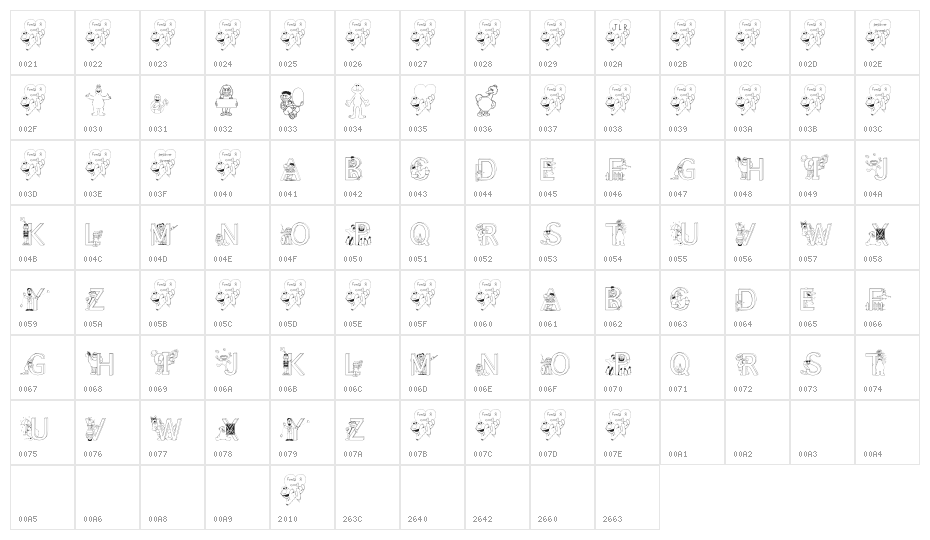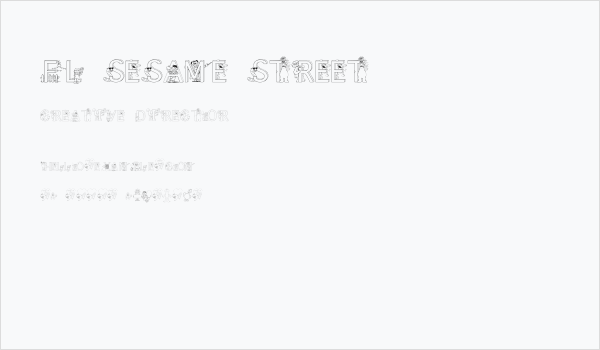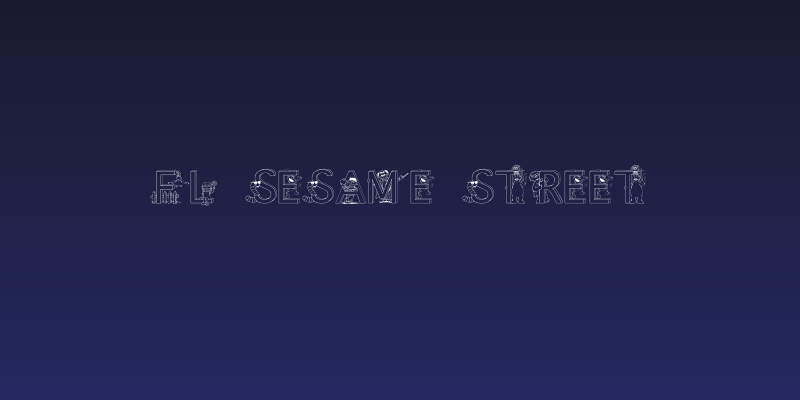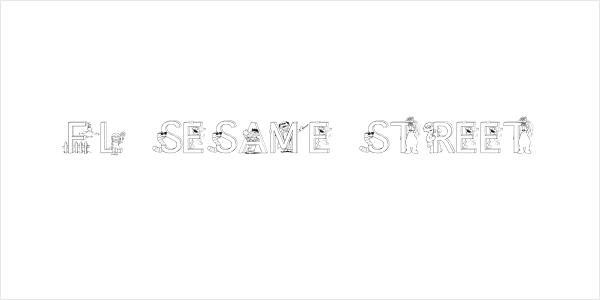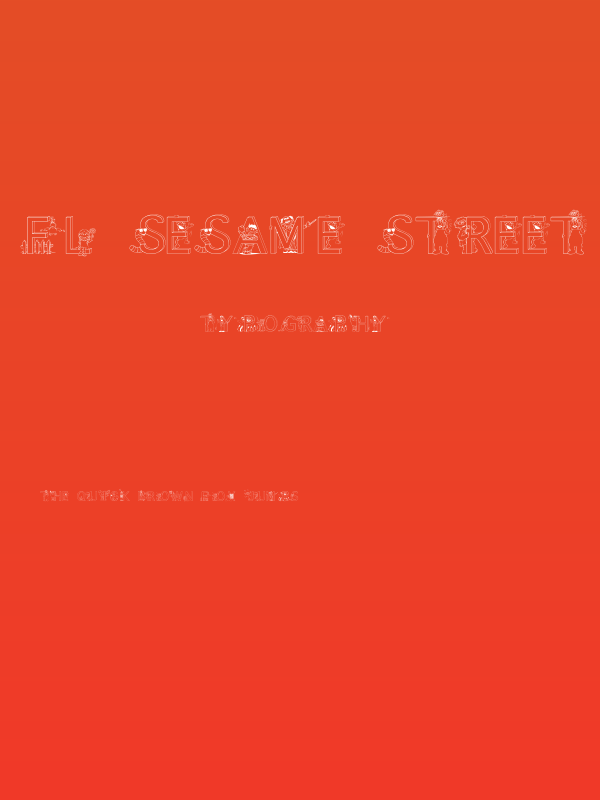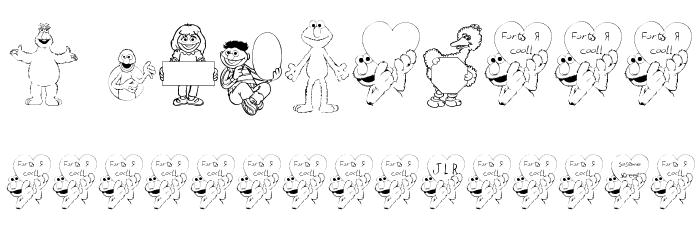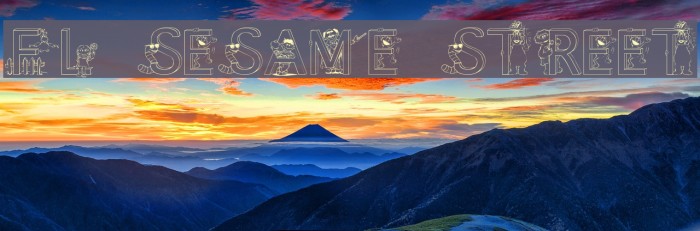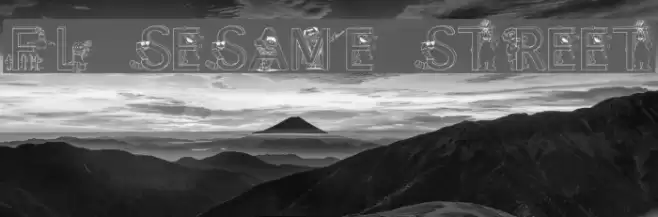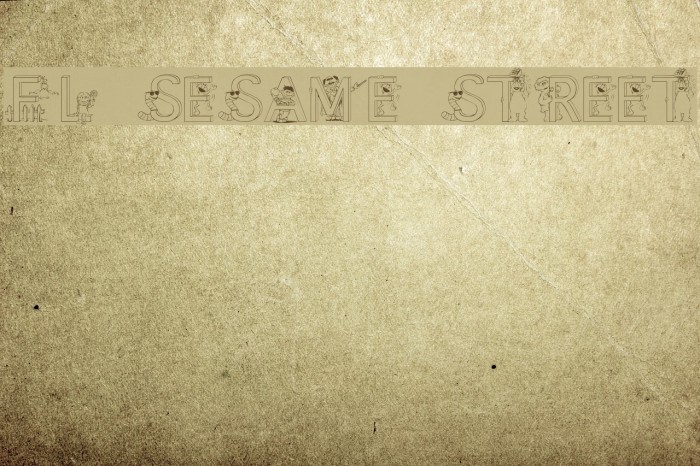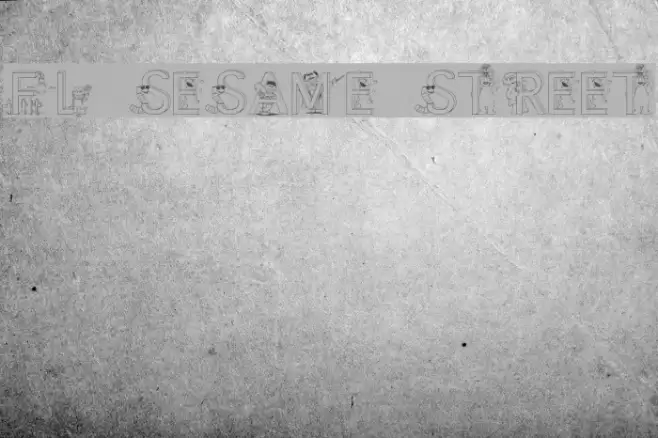
FL Sesame Street Font
FL Sesame Street Description
This playful and whimsical font features characters from a beloved children's show integrated into each letter. The uppercase and lowercase letters are adorned with familiar, friendly faces and elements that evoke a sense of nostalgia and fun. The design is intricate, with each character interacting with the letter forms, creating a lively and engaging appearance. The font is perfect for capturing attention and adding a touch of joy to any project. Its decorative nature makes it ideal for children's materials, party invitations, or any creative endeavor that aims to evoke a sense of playfulness and imagination.
| Overall Style | Playful, Whimsical, Decorative |
| Use Case | Headlines, Logos, Children's materials |
| Proposed Projects | Ideal for children's books, party invitations, educational materials, and playful branding. |